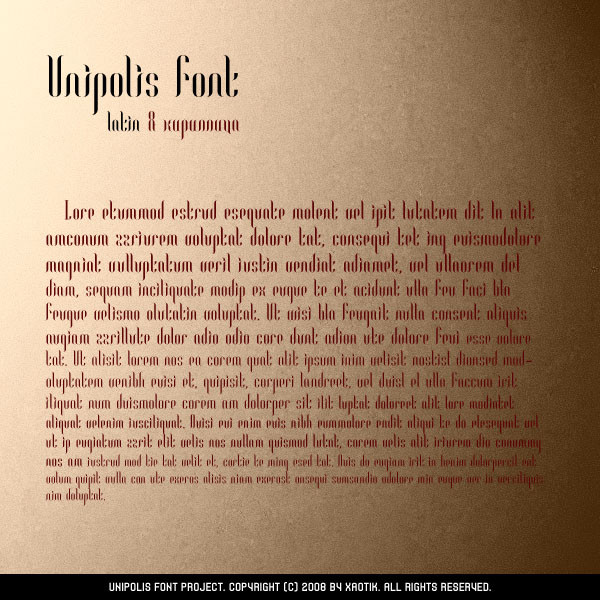
just for funyour comments...
Tis rather nice indeed. Thanks for sharing this.
I love it.. works for one word titles and such.
i grabbed another of your fonts....that gets you a fave.
yeah i know, but it was developed only for short titles
i`ve used your font on almost 4+ projects